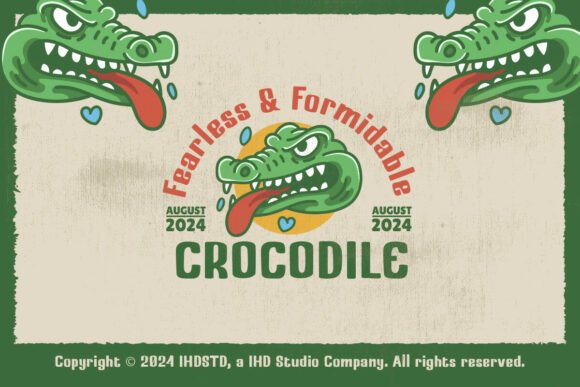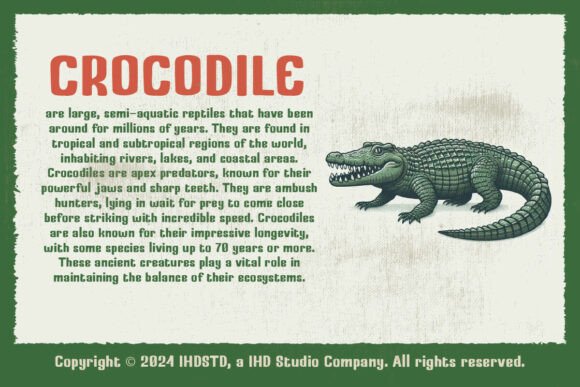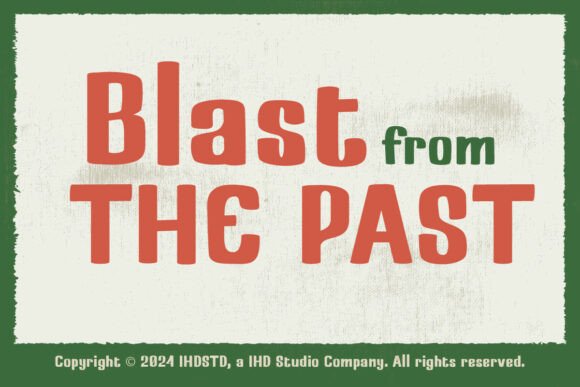
Introduction to Sigaran Font
As a designer, there’s nothing quite like the thrill of discovering a new font that perfectly captures the essence of your creative project. Whether you’re crafting a logo for a vintage-themed coffee shop or designing packaging for a handmade product, the right font can make all the difference. And for those who crave a touch of authenticity and old-school charm, the Sigaran Font is a game-changer.
With its hand-drawn texture and retro appeal, the Sigaran Font is a high-quality design resource that’s sure to elevate your work. Whether you’re working on a free download or a paid project, this font’s transparent background and versatility make it an invaluable asset for designers. In this article, we’ll delve into the world of the Sigaran Font and explore what makes it a valuable addition to any design arsenal.
Key Features of Sigaran Font
- High-quality design for creative projects: Sigaran Font is perfect for designers looking for a unique and elegant font to use in their projects.
- Transparent background: The font has a transparent background, making it ideal for use on images or videos with a background.
- High resolution: The font is available in high resolution, making it ideal for use in large-scale designs or for printing.
- Unique characteristics: Sigaran Font has a unique and elegant design, making it perfect for use in creative projects such as logos, branding, and packaging design.
Honest Review: Sigaran Font
I recently had the chance to work with the Sigaran Font in a creative project and I must say it’s been a great addition to my design resources.
- ✨ High quality typography: The font is well-designed and suitable for a variety of applications, from body text to headings.
- ✨ Transparent background: This feature allows for easy layering and blending with other design elements.
However, I did encounter a few limitations while working with the Sigaran Font.
- ⚠️ Limited font styles: The font comes in a limited number of styles, which might not be suitable for more complex design projects.
- ⚠️ Not ideal for small text: While the font is great for headings and body text, it’s not the best choice for small text sizes.
Overall, I’m impressed with the Sigaran Font and would definitely recommend it as a design resource for those looking for a high-quality, free font.
Tips for Getting the Most Out of Sigaran Font
Experiment with different font sizes and styles to create visual interest in your design. Use the font in combination with other design resources, such as graphics and images, to create a cohesive look.
Sigaran Font is suitable for a variety of design projects, including logos, brochures, and business cards. Its high quality and transparent background make it an ideal choice for designs that require a professional and polished look.